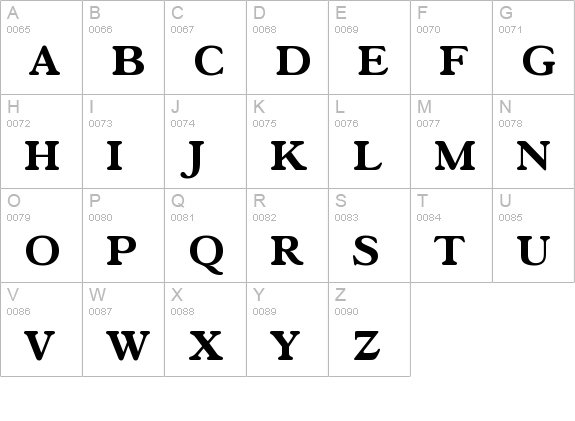
GascogneSerial-Xbold-Regular is the standard, neutral variant in the GascogneSerial typeface family \xE2\x80\x94 well suited to general body text, paragraphs, and standard typographic work.
GascogneSerial-Xbold-Regular font exudes elegance and sophistication with its bold and striking design. This versatile typeface is perfect for creating attention-grabbing headlines, branding materials, and editorial designs. The strong, clean lines of GascogneSerial-Xbold-Regular font make it a timeless choice for any project that demands a touch of modern flair. Best of all, GascogneSerial-Xbold-Regular font is available for free download at FontsMarket.com. Whether you're a professional designer looking to add a new font to your collection or a casual user in need of a stylish typeface for personal projects, GascogneSerial-Xbold-Regular font is the perfect choice. Download it today and elevate your designs with this exceptional typeface.